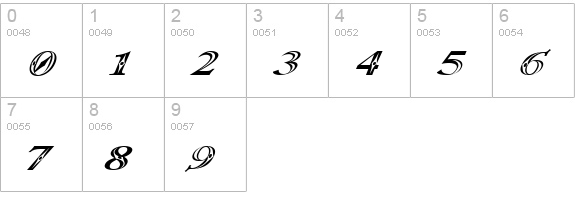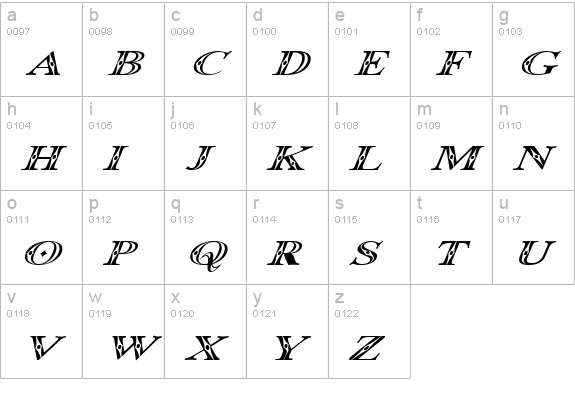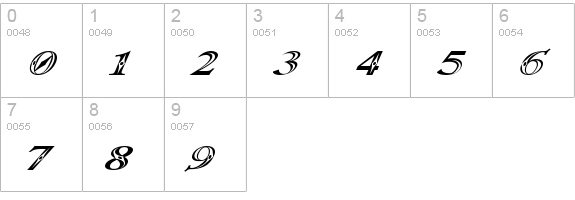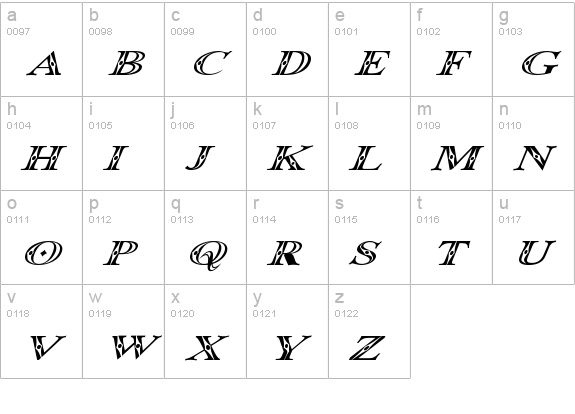
Occoluchi Italic Font Details
Occoluchi Italic is a distinctive, italic variant in the Occoluchi typeface family \xE2\x80\x94 well suited to design and typography projects.
Occoluchi Italic font combines elegance and modernity in a harmonious design that is perfect for adding a touch of sophistication to any project. With its sleek and stylish curves, this font exudes a sense of refinement and creativity. The flowing italic style adds a dynamic and artistic flair to any text, making it ideal for use in branding, editorial design, and more. What makes Occoluchi Italic font even more appealing is that it is available for free download at FontsMarket.com. This means that you can easily access this stunning font and use it in your projects without any cost. Whether you are a designer, a student, or anyone looking to enhance their visual creations, Occoluchi Italic font is a versatile and beautiful choice that will elevate your work to the next level. Download it today and let your creativity shine!